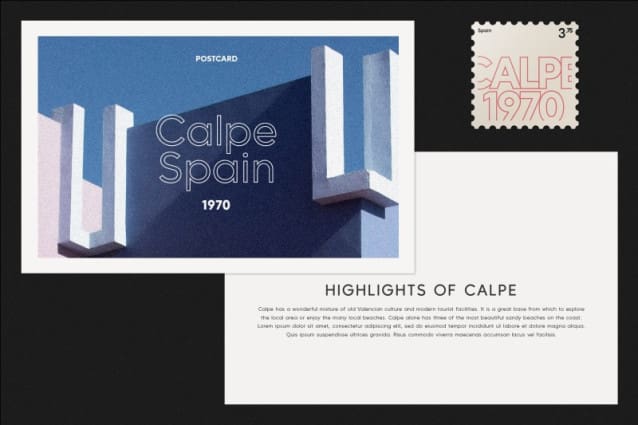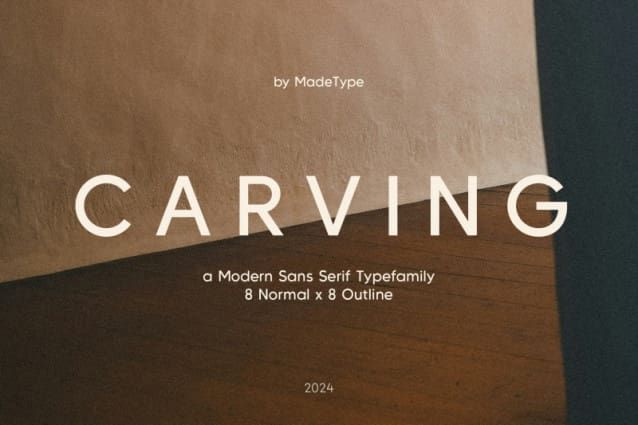
Made Carving Font Family
Made Carving Font Family is a modern sans serif typefamily. MadeCarving will perfect for many project: fashion, magazines, logo, branding, photography, invitations, wedding invitation, quotes, blog header, poster, advertisements, postcard, book, websites, etc.